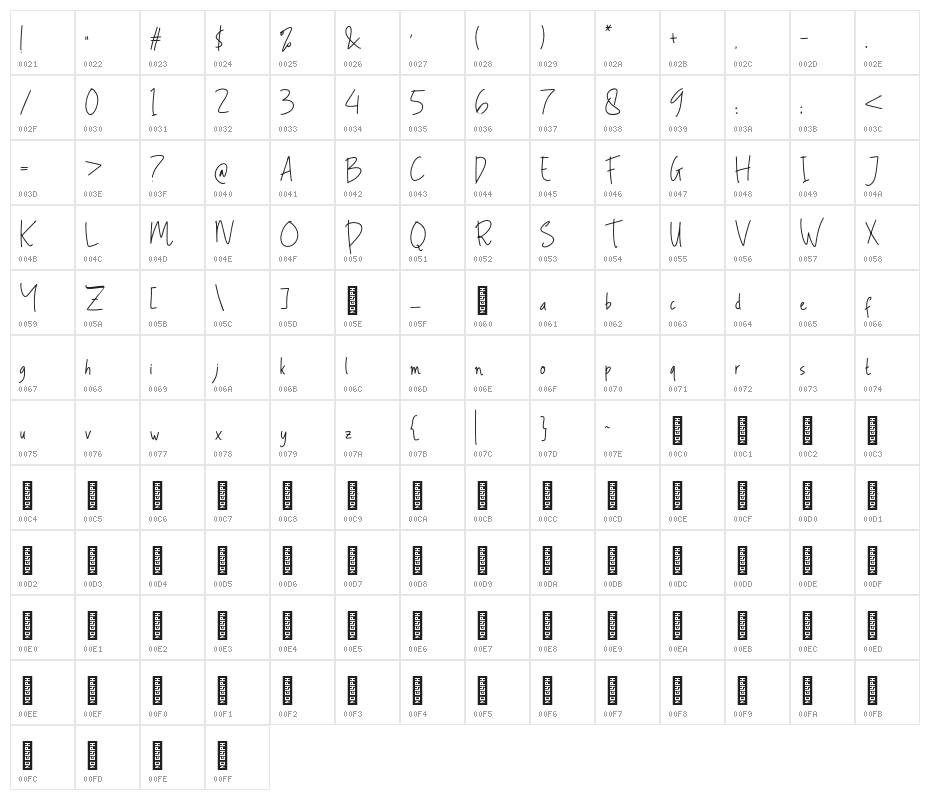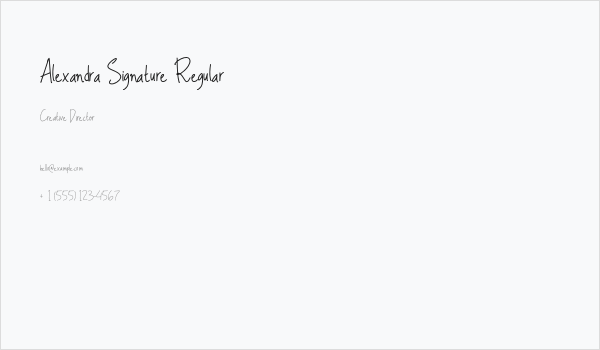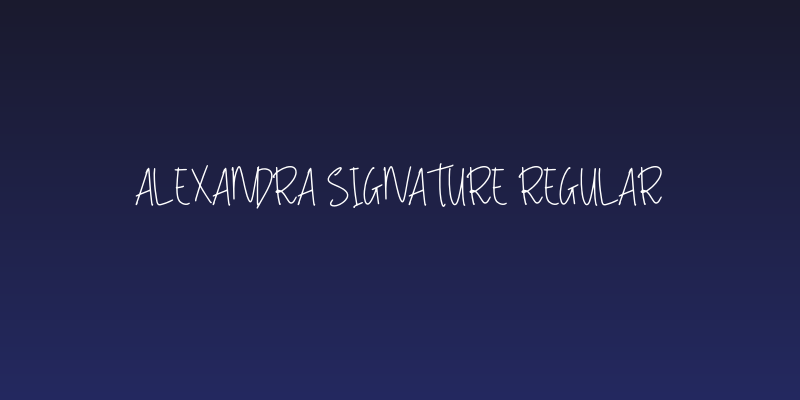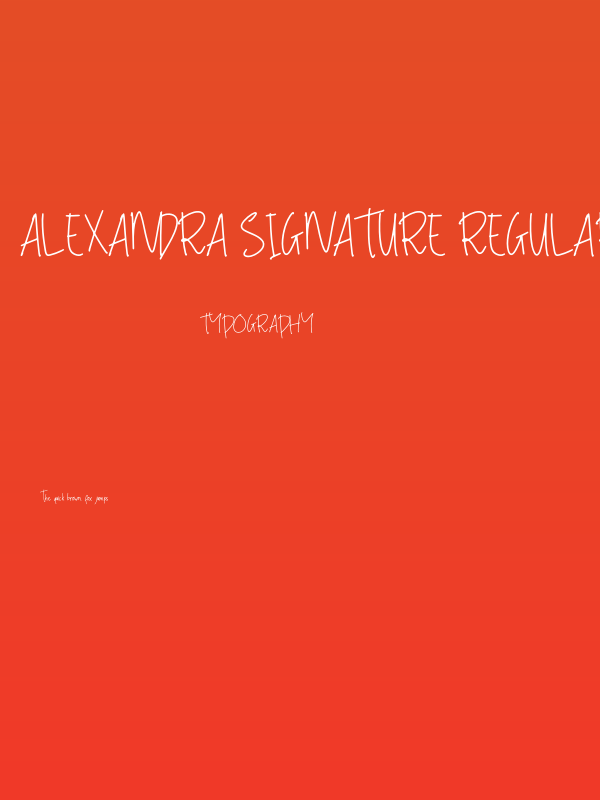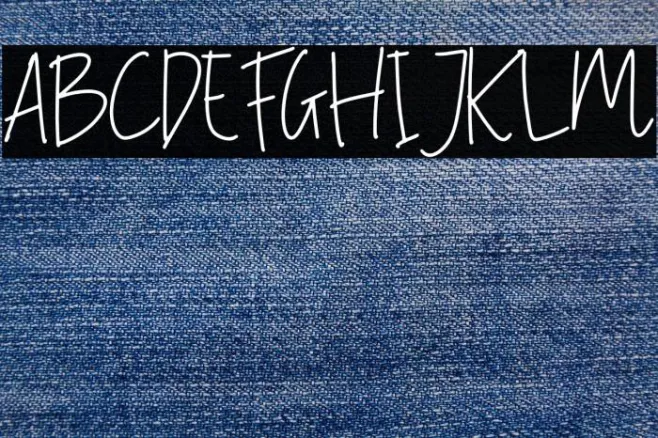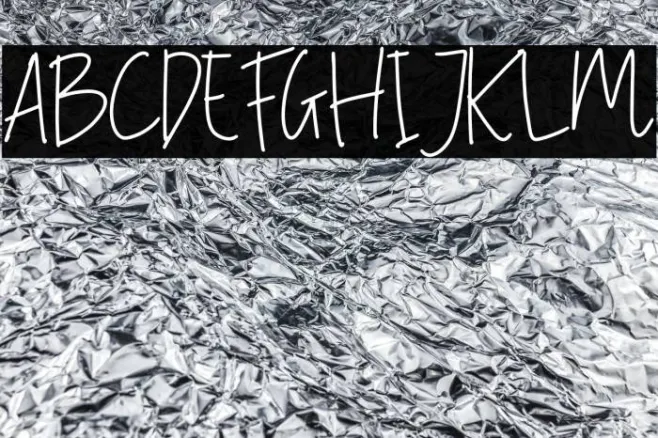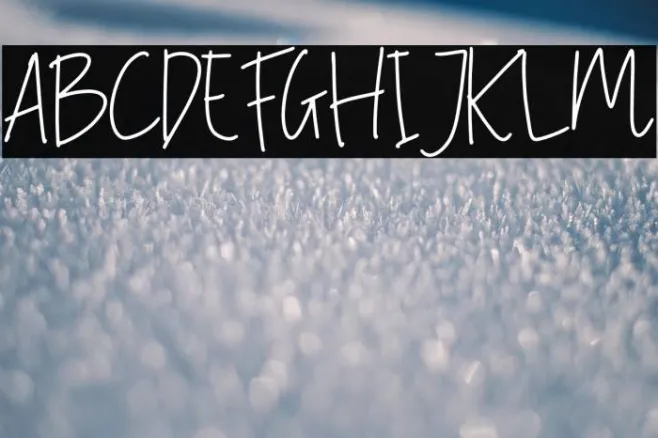
Alexandra Signature Regular Font
Alexandra Signature Regular Description
This font exudes a casual, handwritten style with a touch of elegance, making it perfect for personal and creative projects. The letters are slightly slanted, giving a dynamic and fluid appearance. The strokes are consistent in width, providing a uniform look across all characters. The uppercase letters are tall and narrow, while the lowercase letters maintain a balanced proportion, enhancing readability. Numbers and special characters are crafted with the same attention to detail, ensuring they blend seamlessly with the alphabet. This font is versatile, offering a unique personality that can enhance various design projects.
| Overall Style | Casual, Elegant |
| Use Case | Logos, Invitations, Personal branding |
| Proposed Projects | Ideal for invitations, greeting cards, personal branding, and creative projects. |